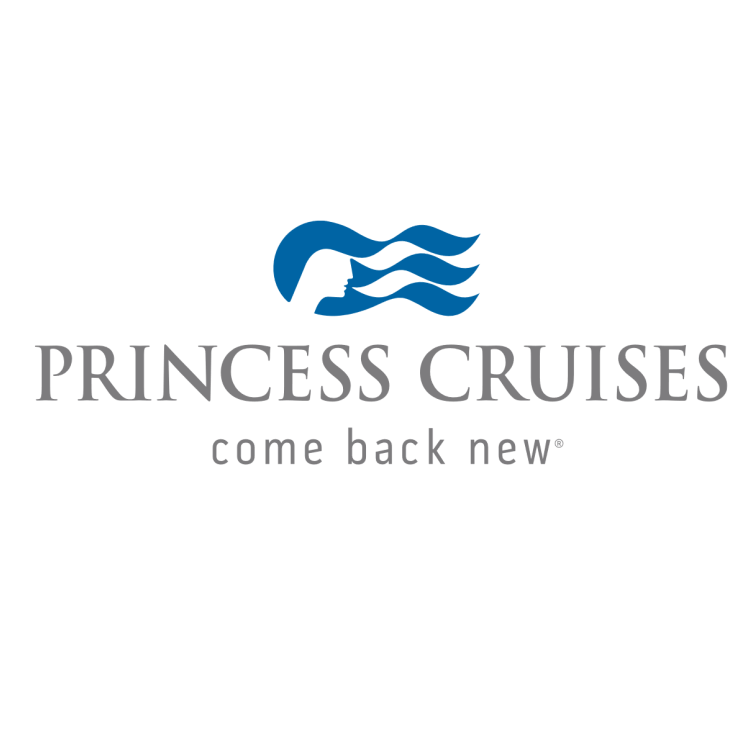
Princess Cruises Font
The emblem of Princess Cruises showcases Carol Twombly's Trajan Bold, an all-uppercase font created in 1989 for Adobe. The phrase "come back new" is set in Pill Gothic 300mg Regular, a font with geometric design by Christian Robertson.